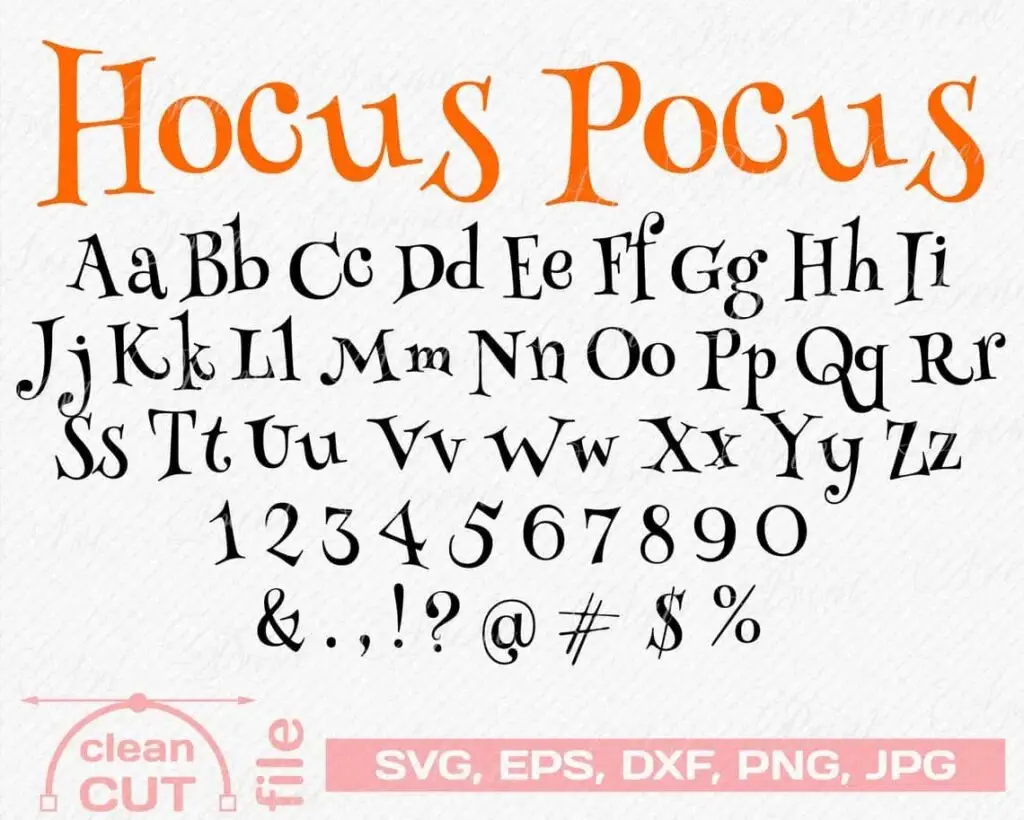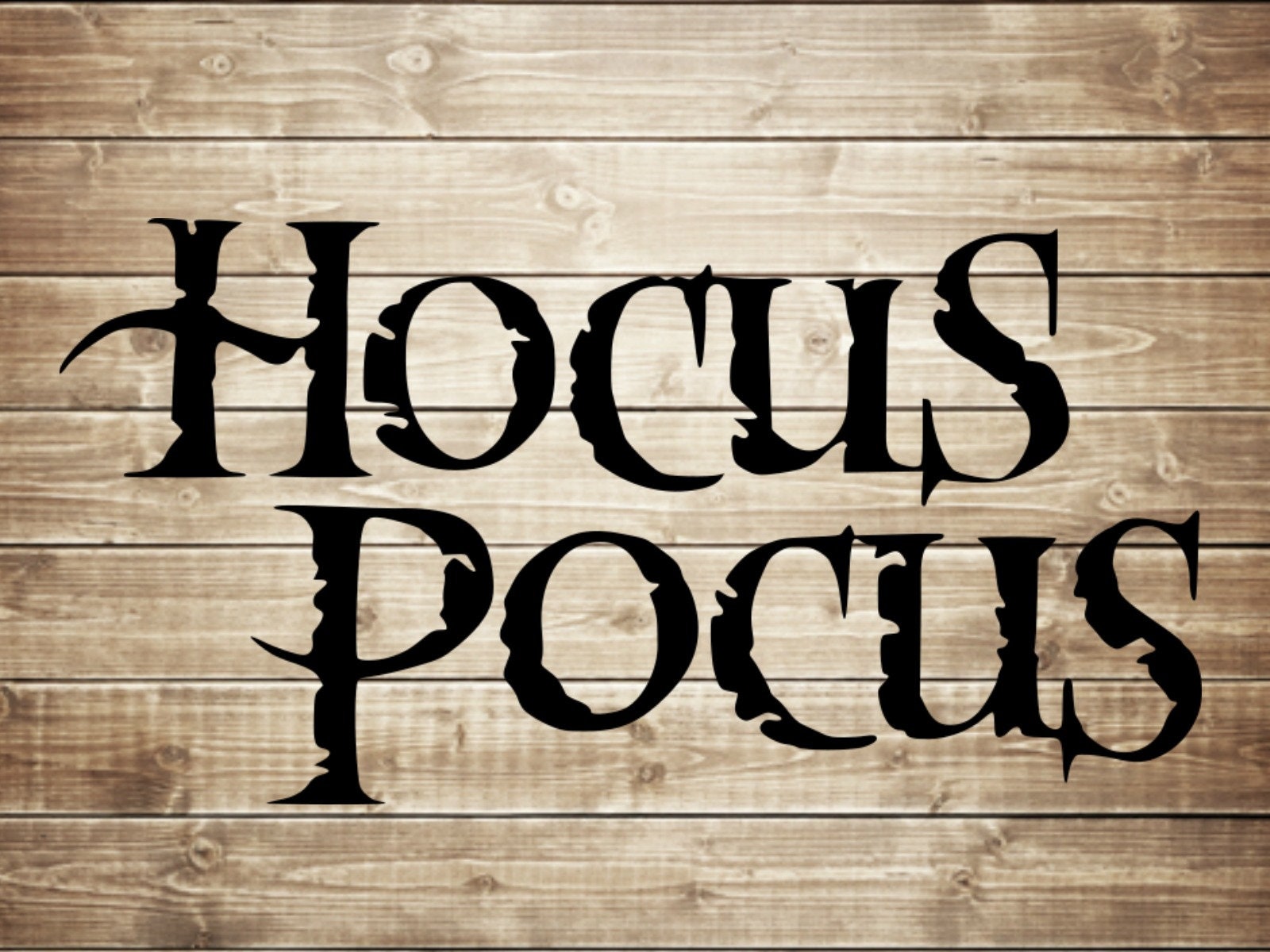
Hocus Pocus Font Free
Hocus Pocus Font Free - These fonts are suitable for spooky, creepy, and halloween. Find and download four free fonts in the hocus pocus style from fontspace.
These fonts are suitable for spooky, creepy, and halloween. Find and download four free fonts in the hocus pocus style from fontspace.